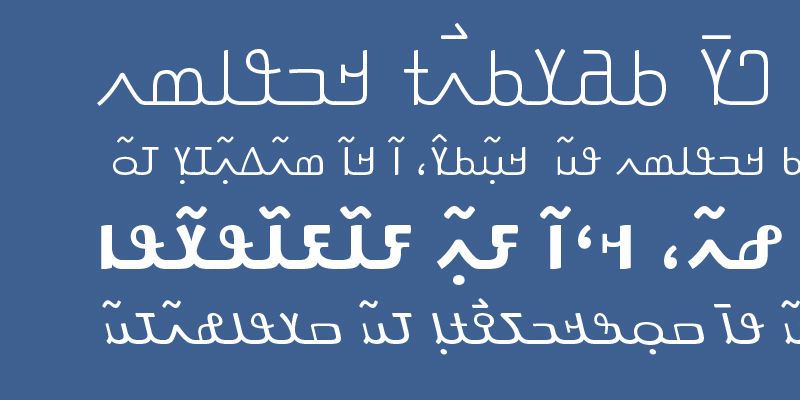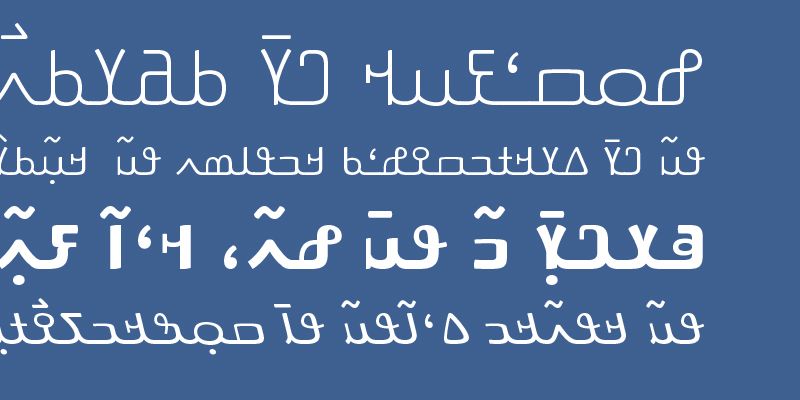
Kigelia N’ko contains everything needed for setting the Manding language of West Africa in the dialects Maninka, Dioula, Bambara and Mandinka. It also contains a Basic Latin complement.